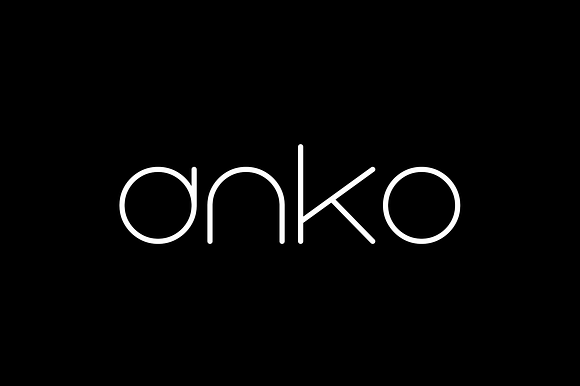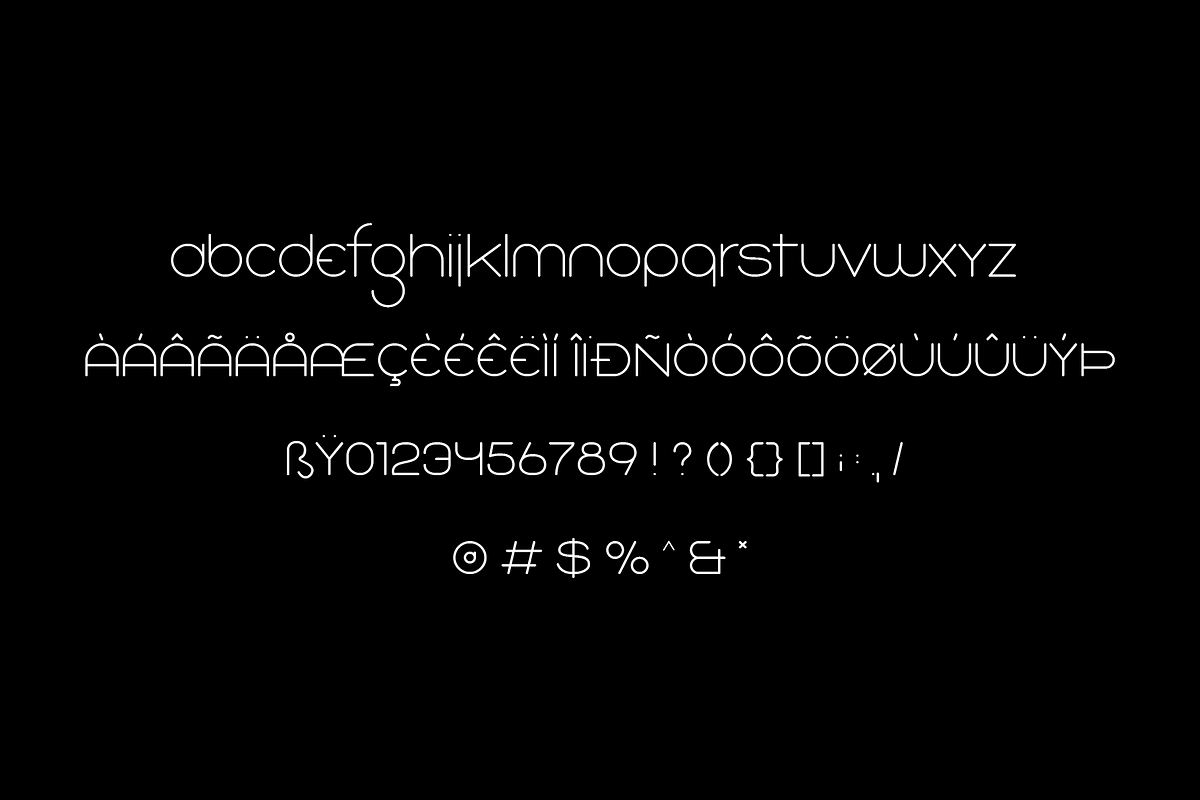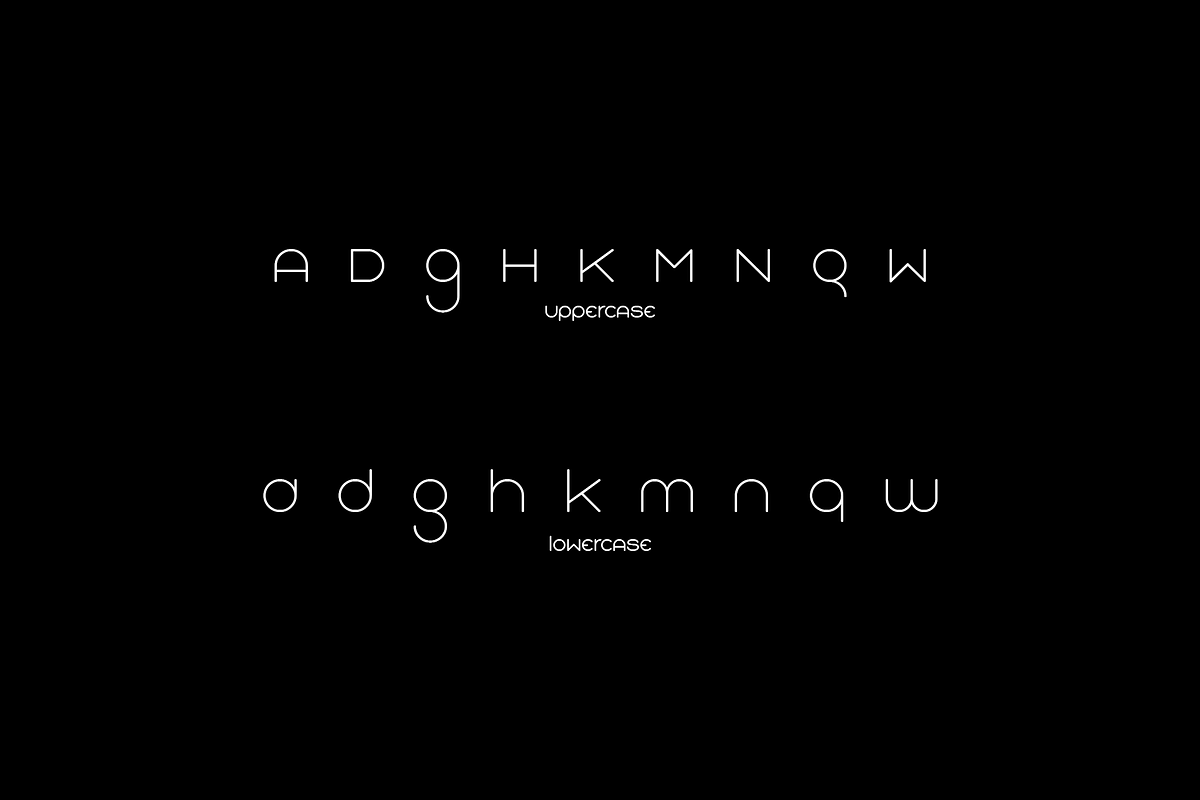
Anko - Joyful Rounded Font
minimalistic rounded font for fashion
- Anko Light
- Anko Regular
- Anko Bold
Anko - Joyful Rounded Font by Alberto Fontense fits naturally into Branding, posters, packaging, typography.